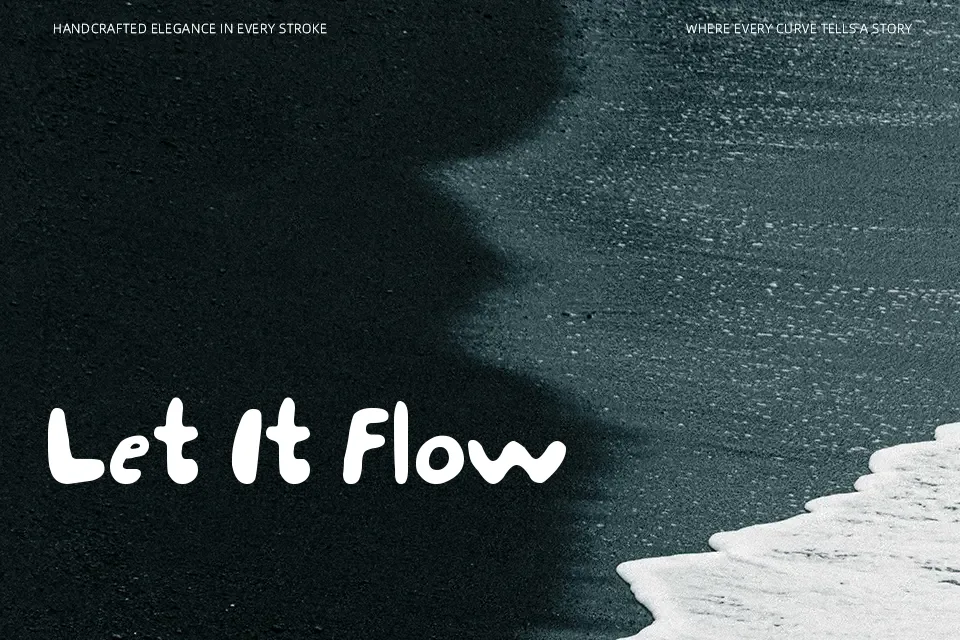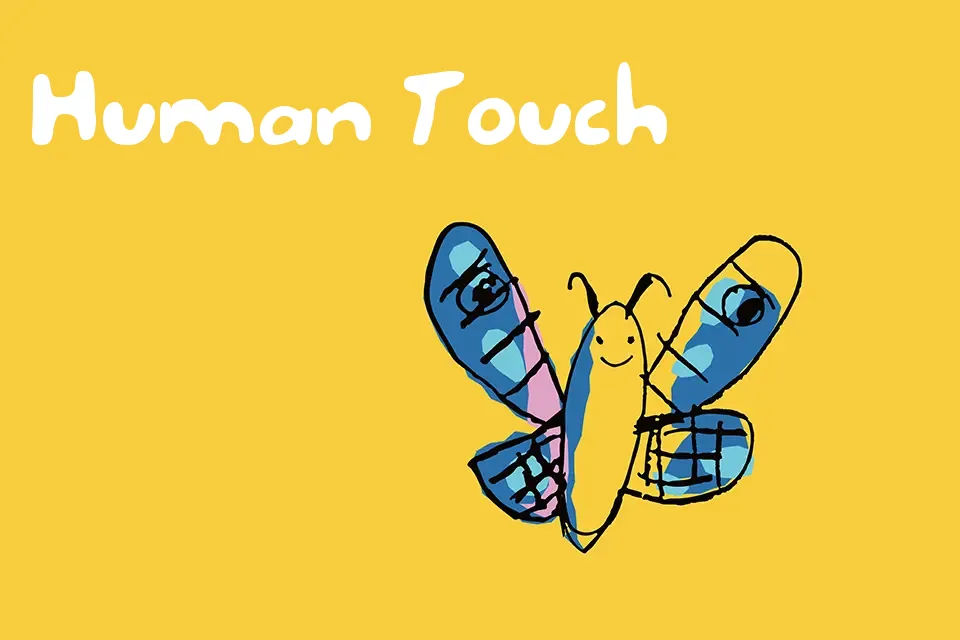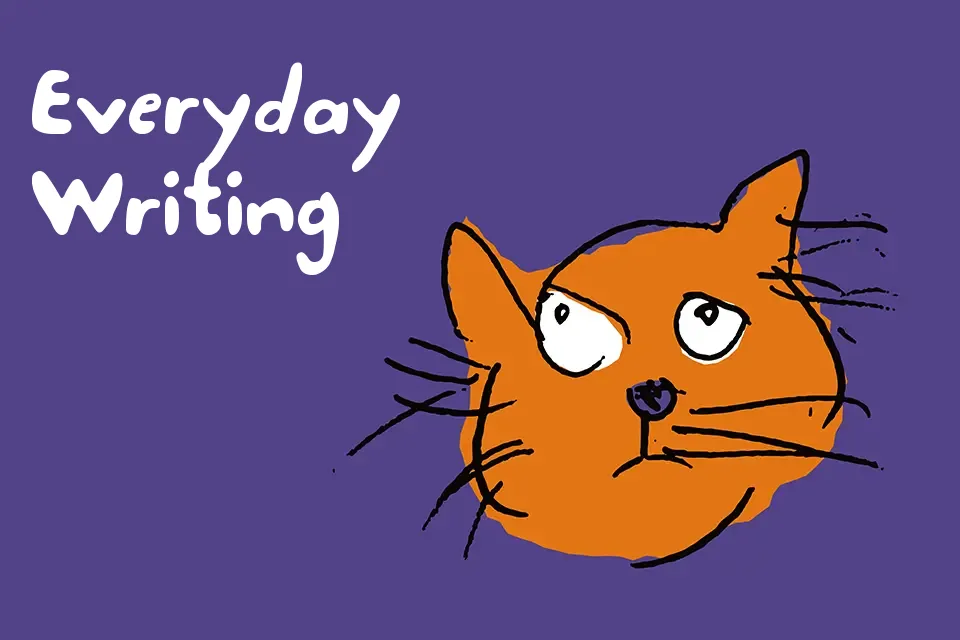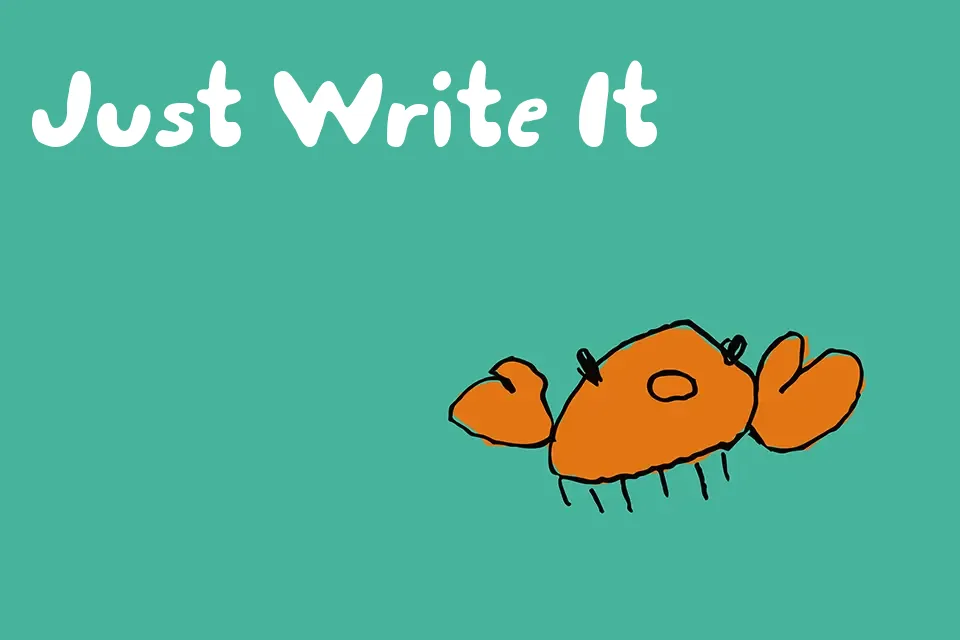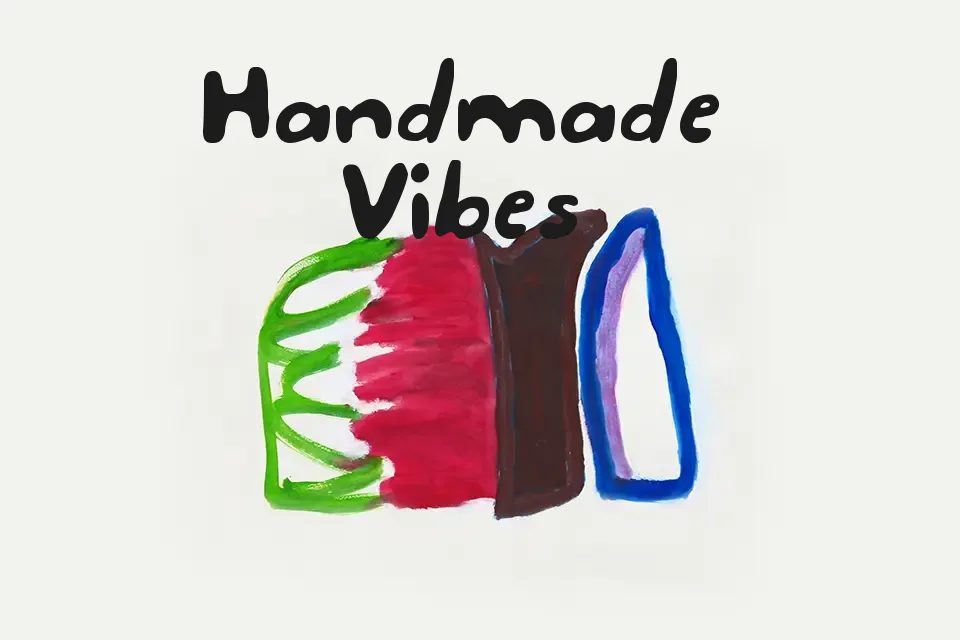
Porcupine Font
Designed by motitta
The visual rhythm of Porcupine Font relies on a cheerful comic style and approachable handwritten structure. The letterforms display an irregular baseline, giving the typeface a natural, bouncy energy. Its strokes are thick with soft rounded terminals, ensuring strong visibility in medium to large headers. The open spacing helps maintain clarity in vibrant logo designs. This casual appearance makes it an excellent choice for children’s apparel, toy packaging, and animated branding where a warm tone is required. However, the informal proportions become less effective at smaller sizes. Dense paragraphs can feel cluttered, meaning the design performs best when restricted to short statements rather than continuous editorial text.
animated toy packaging
children’s book covers
school event posters
casual apparel graphics
dense paragraph text
corporate business reports
technical manuals
Perfect for kids, logo, and packaging, with a cute and cartoon style.